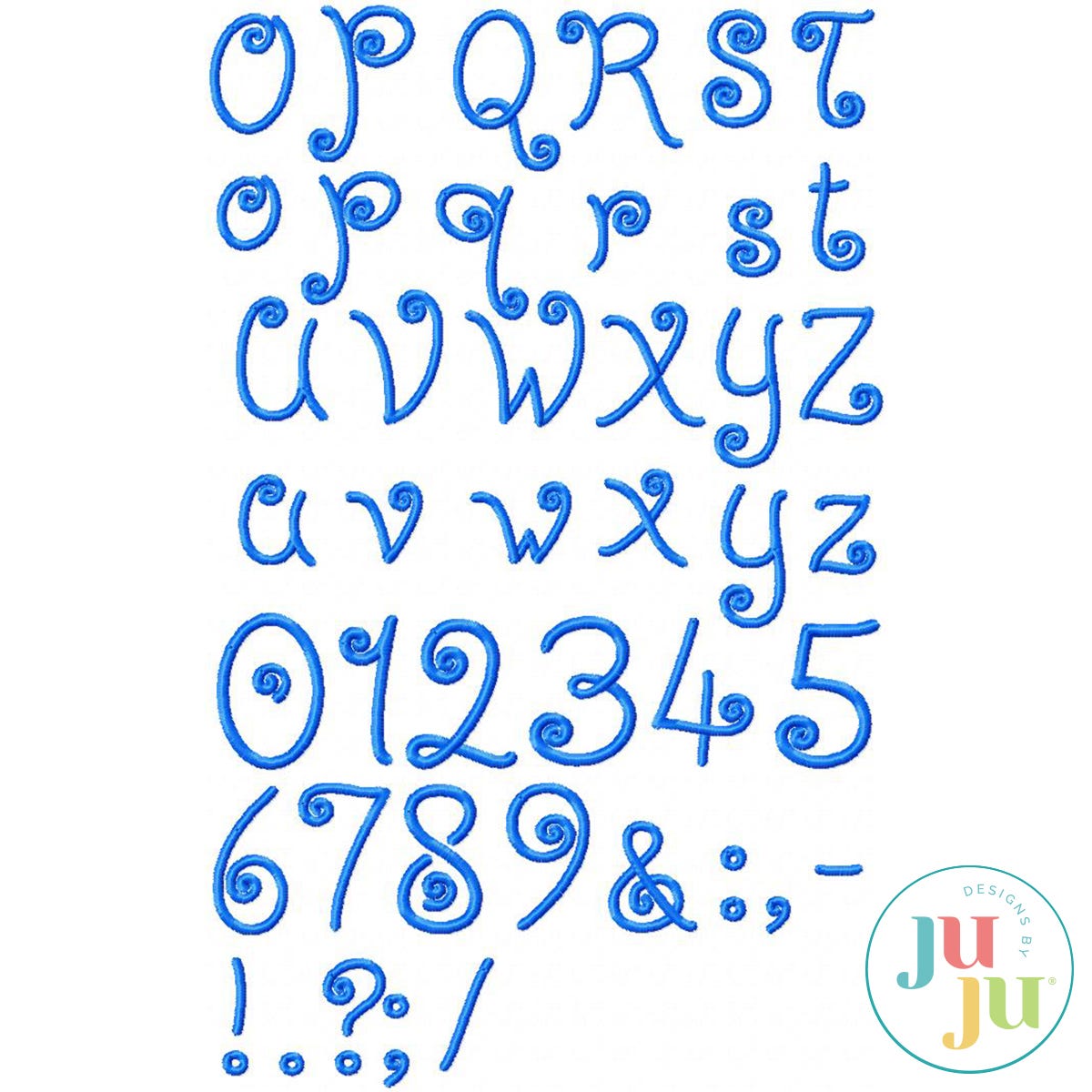
Girl Talk Satin Stitch Embroidery Font by Oma's Place
This very girly font stands (on the average) about 1.5" tall (capital letters). Because of the curly nature of this font sizes may vary up from just above 1.00" to 1.82" tall. Extra attention was paid to the digitizing of the curls to keep them from being too dense and to allow for easy and smooth stitching.